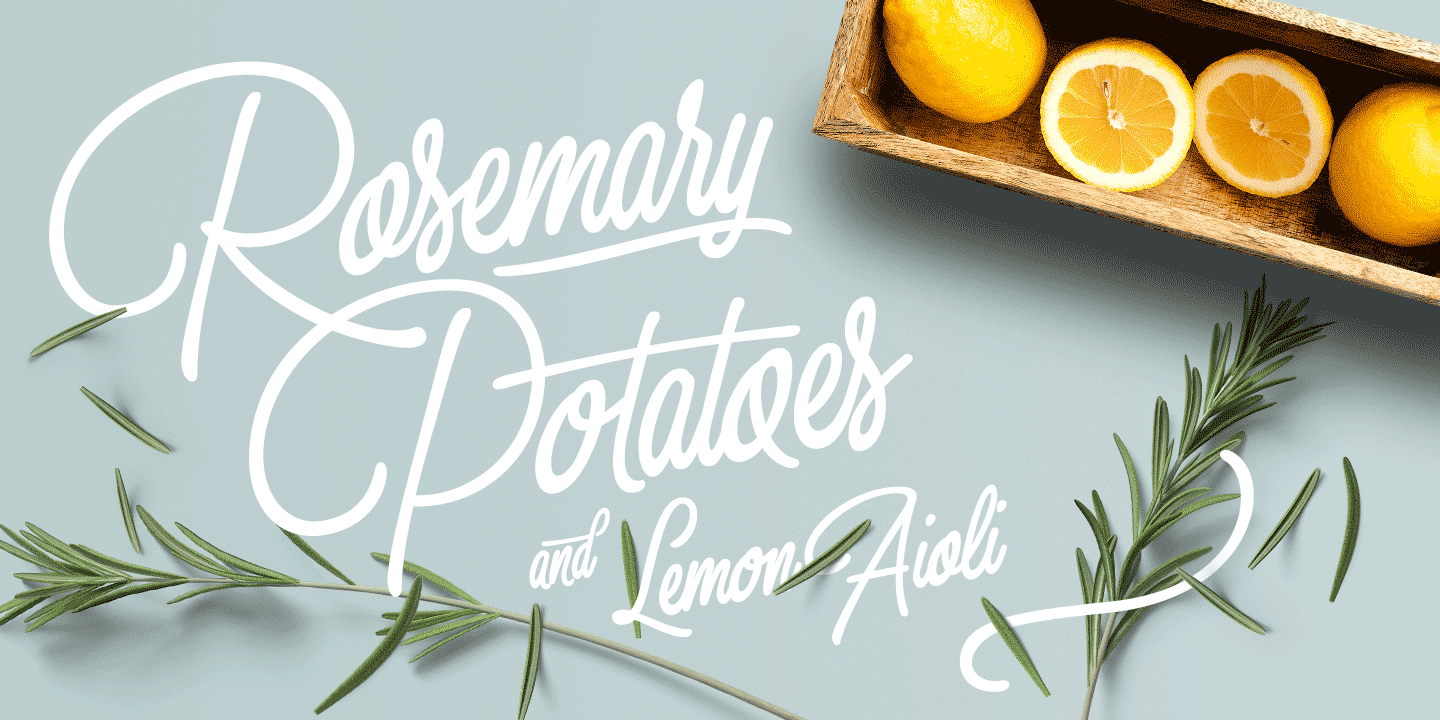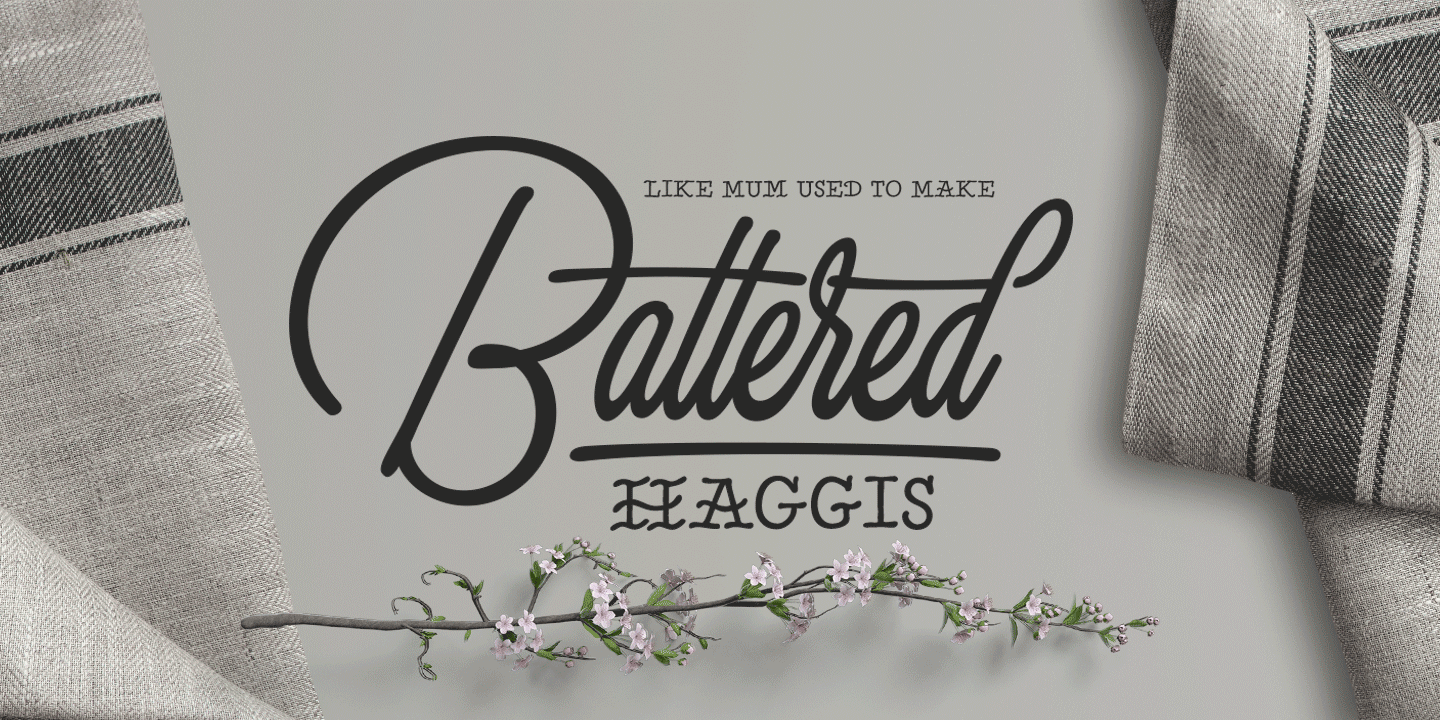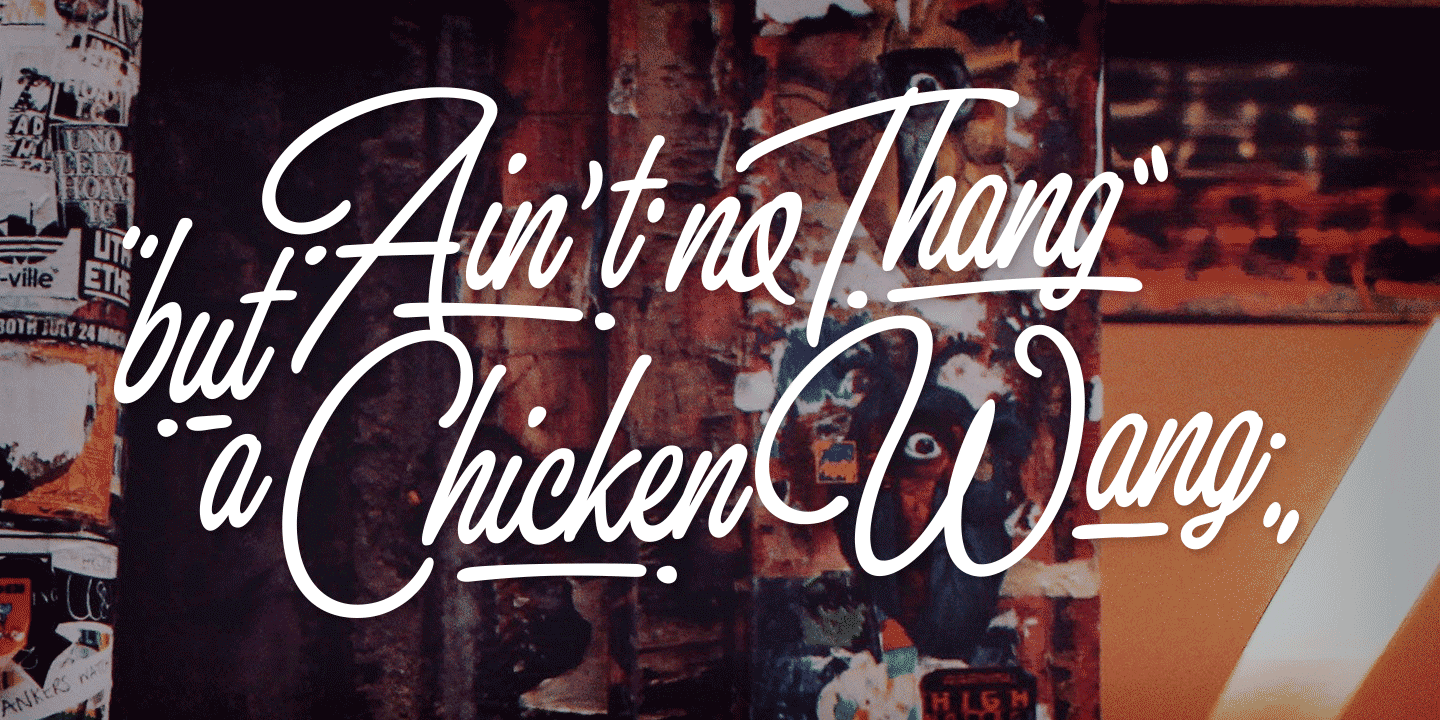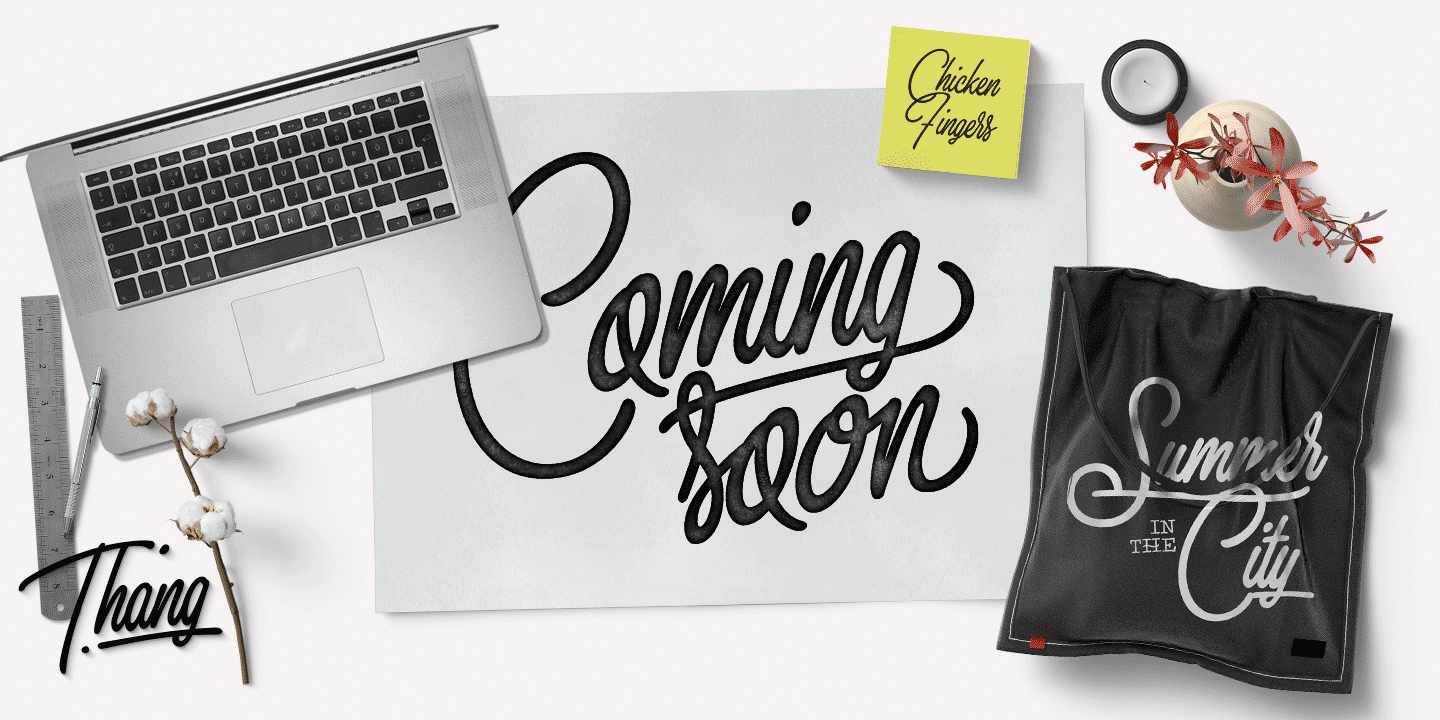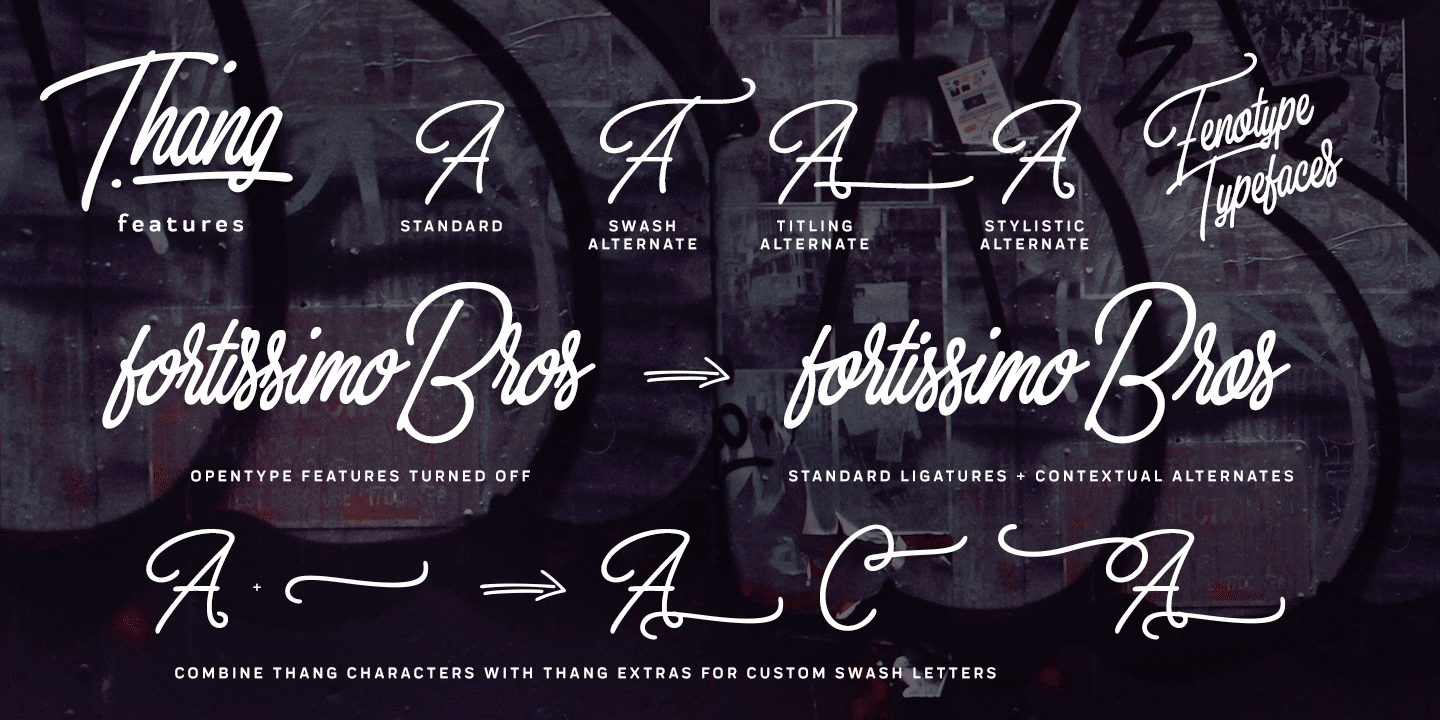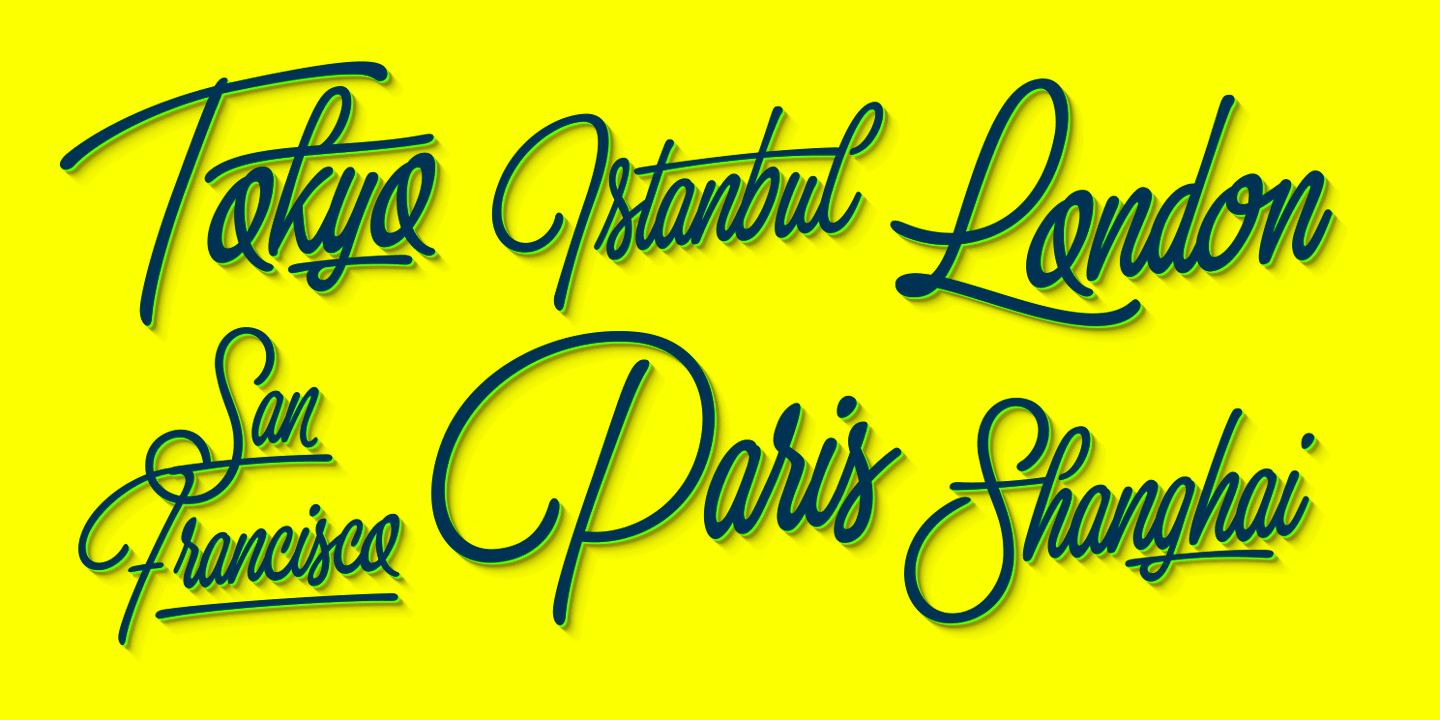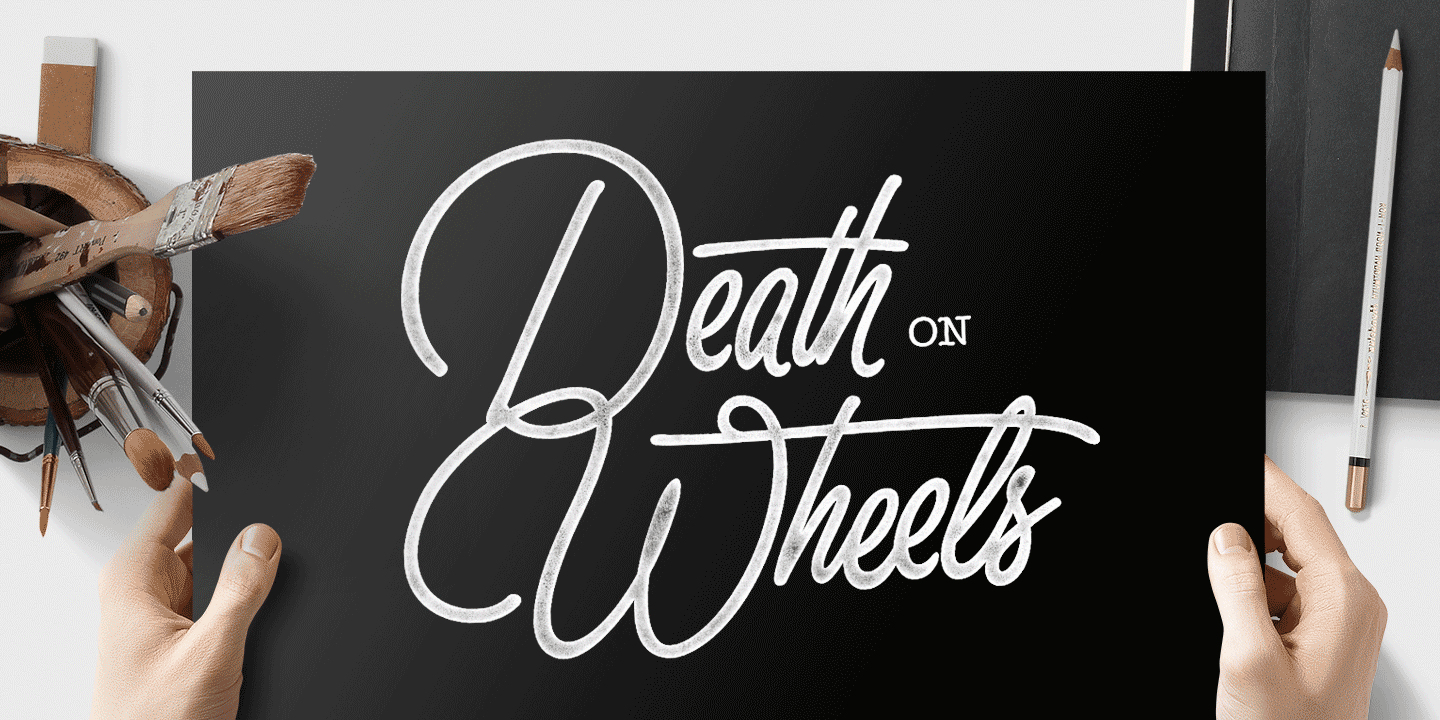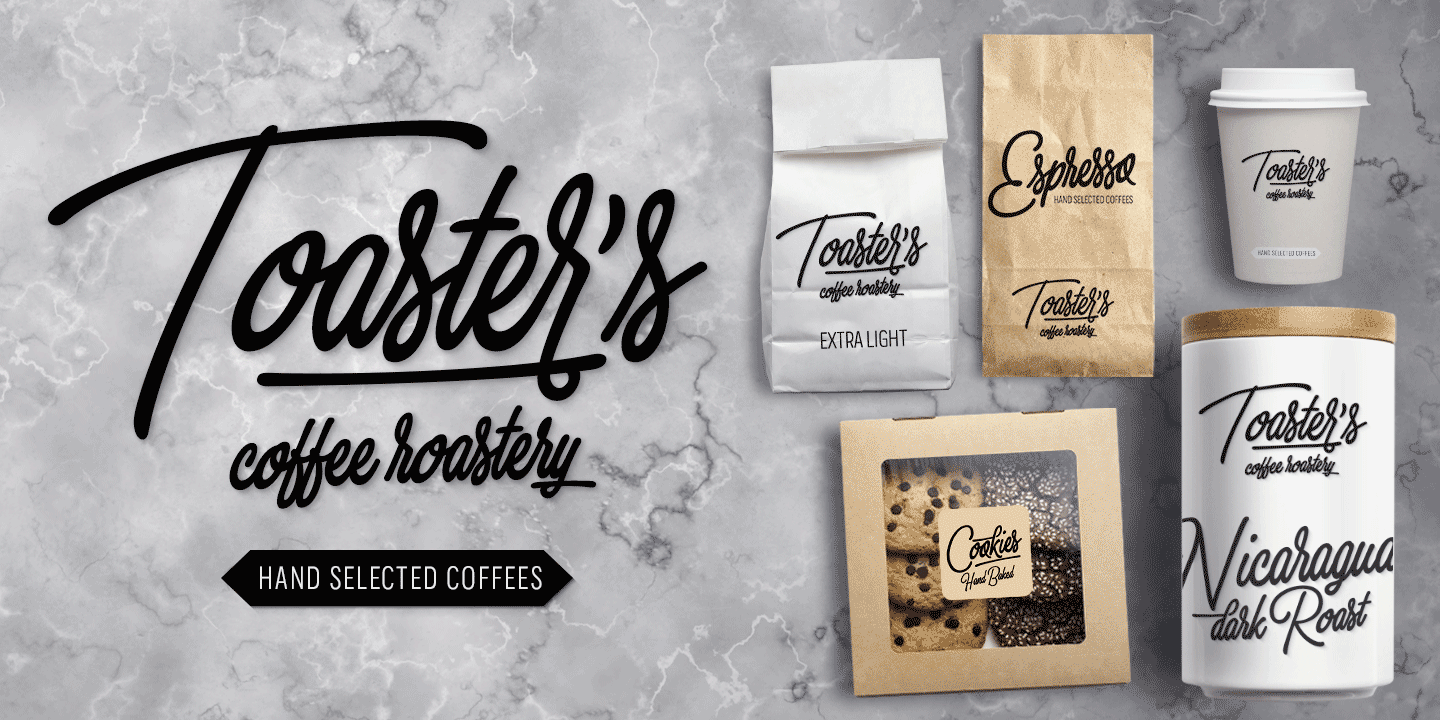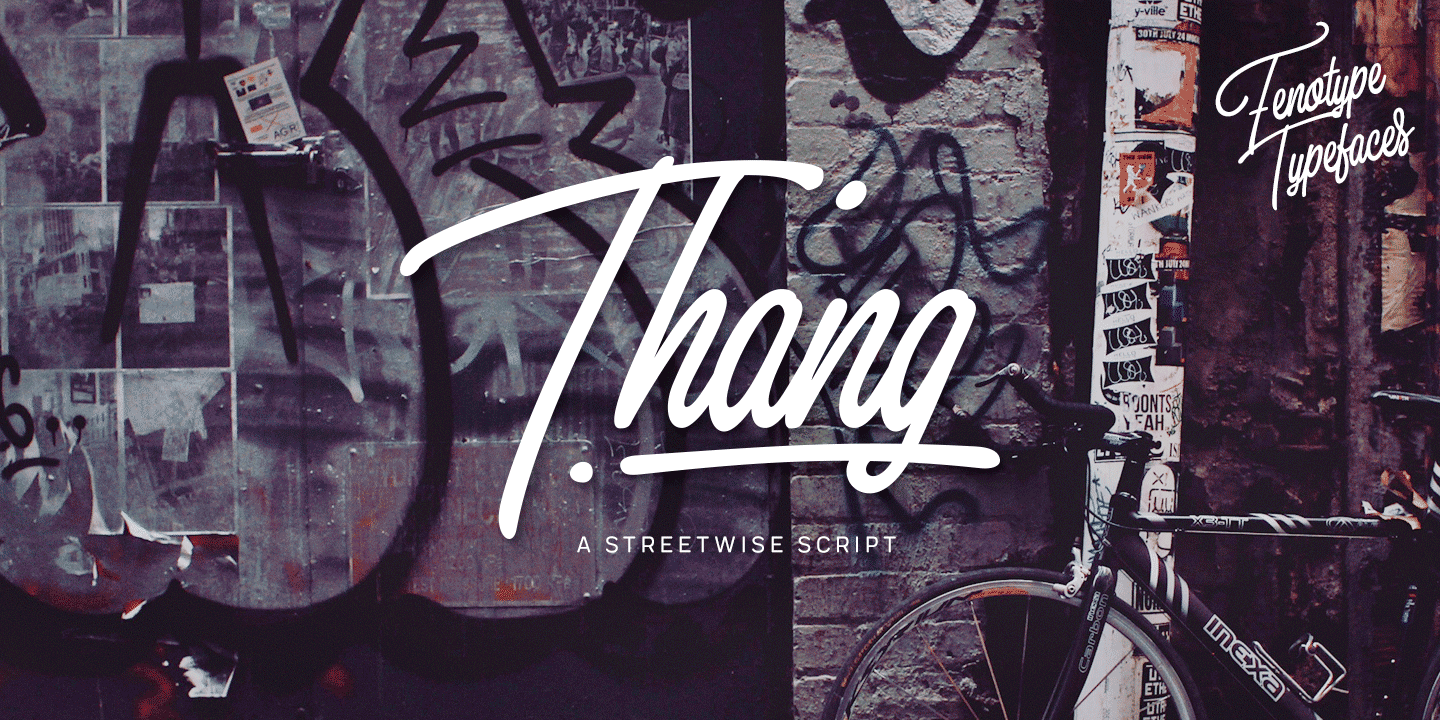
Thang
About Thang
Aint? nuthin but the Thang. Thang is a street cred script family with big initial caps and tight flow. Thang is great for flashy headlines or as a logotype. Thang family comes with three weights. Thang Extras is a pack of strokes and dots that can be…